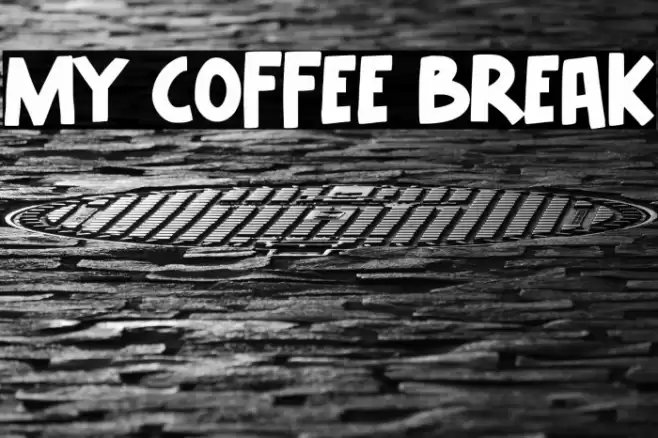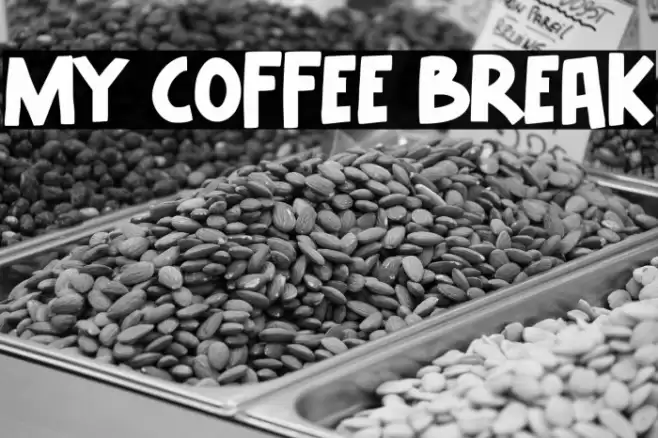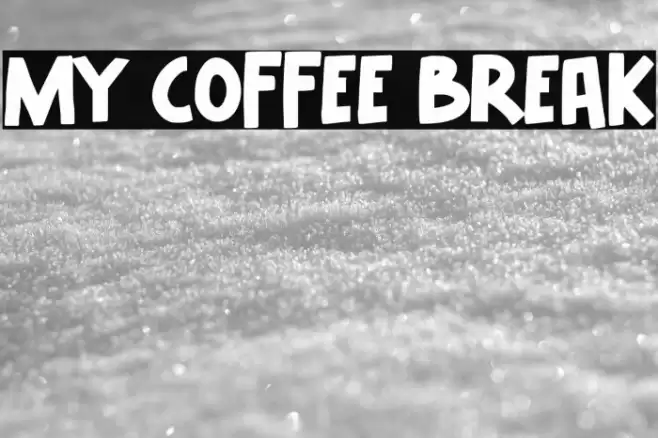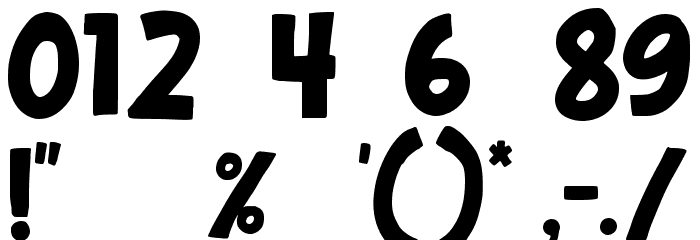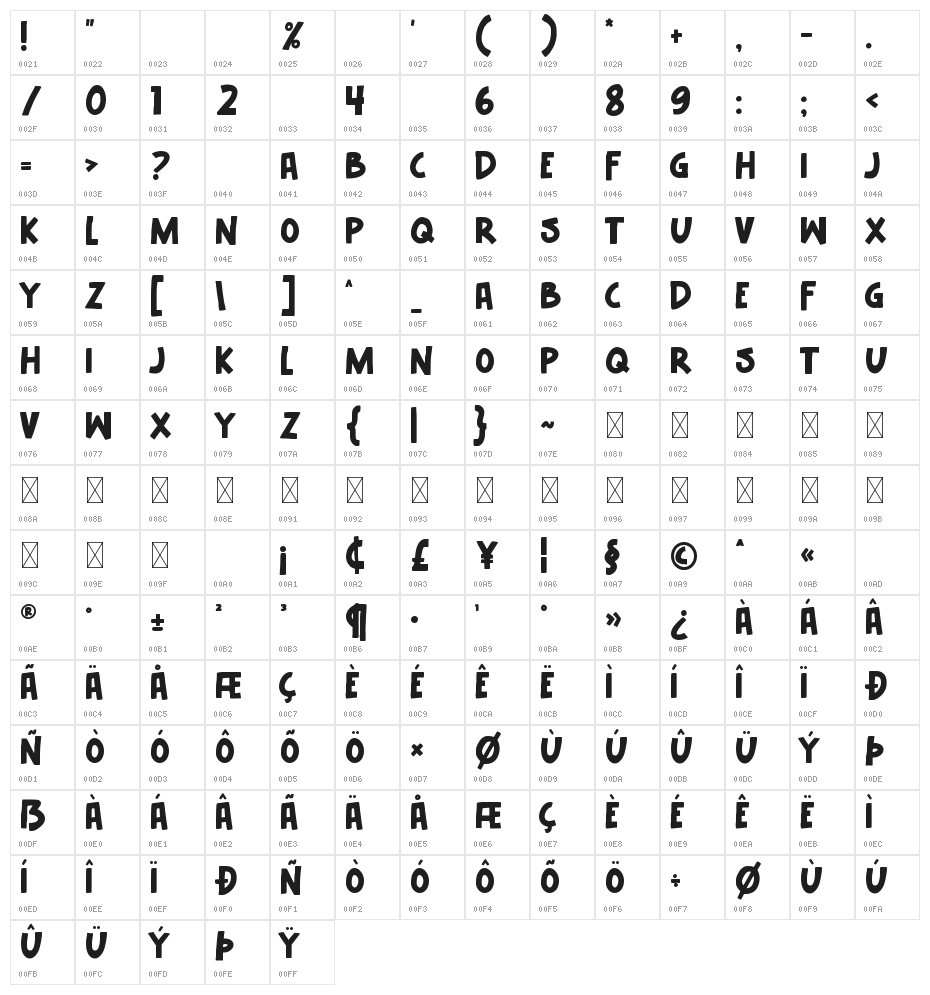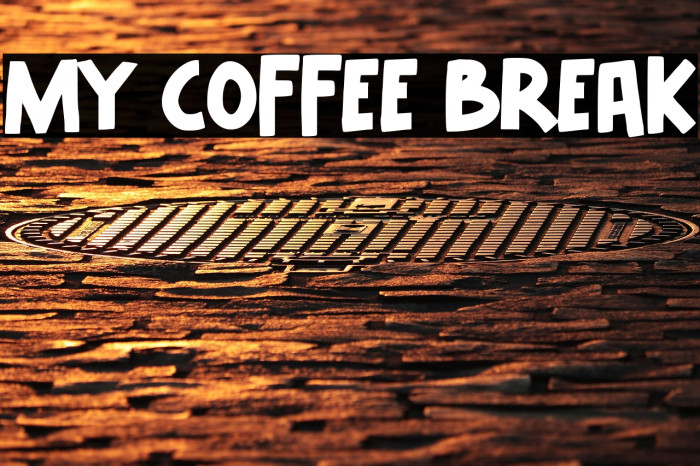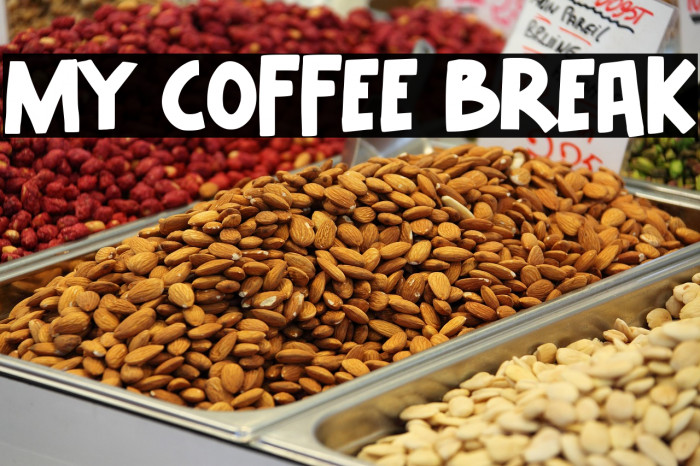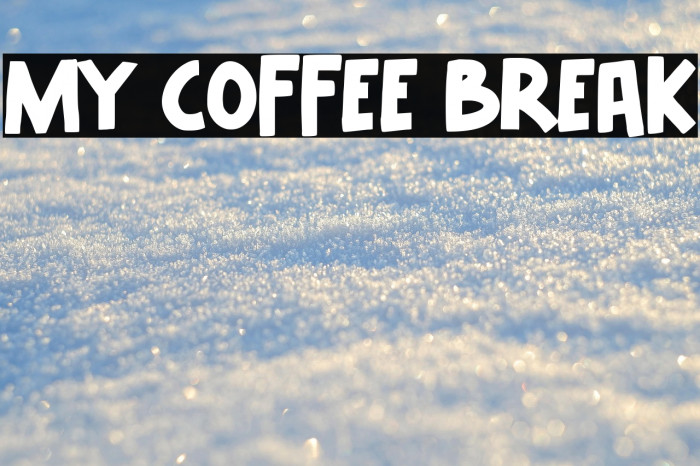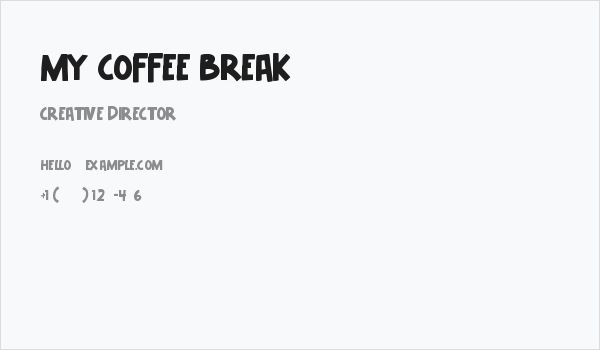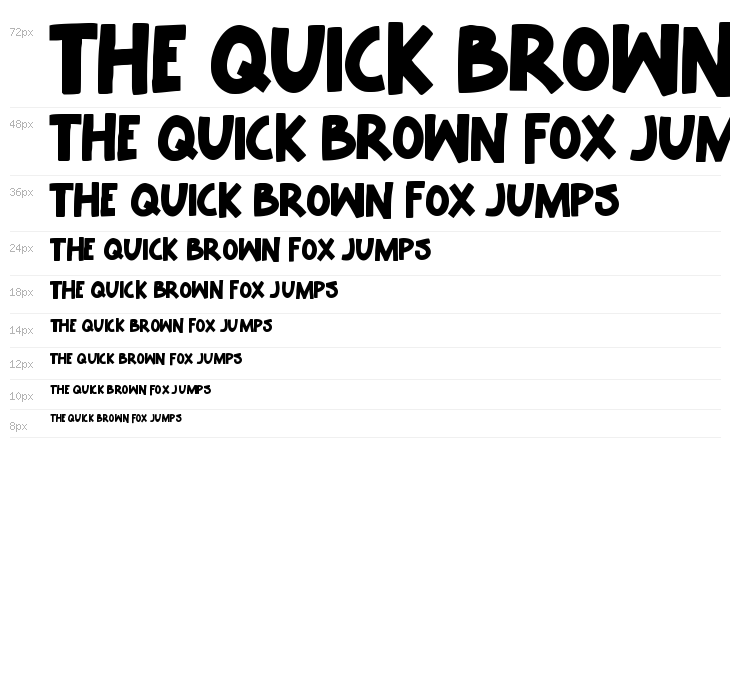
My Coffee Break Font
My Coffee Break Description
This font features a bold and playful design with a hand-drawn aesthetic. The characters are thick and rounded, giving a friendly and approachable feel. The uppercase and lowercase letters maintain a consistent style, with slightly exaggerated curves and a casual, informal look. The numbers and special characters follow the same playful theme, making them suitable for creative and fun projects. The overall appearance is dynamic and energetic, perfect for capturing attention.
A bold, playful font with a hand-drawn, informal style from Uncategorized fonts.
- Font: My Coffee Break
- Proposed Projects: Ideal for children's books, playful branding, posters, and social media graphics.
- Overall Style: Playful